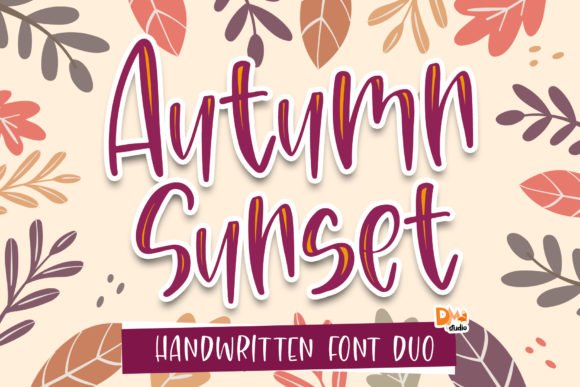
A Colorful Moment of Inspiration
There’s something magical about witnessing an autumn sunset – the vibrant hues of orange, pink, and yellow dancing across the sky. It’s a moment that sparks creativity and sets the tone for a cozy, inviting atmosphere. For designers, it’s the perfect inspiration to create something warm and captivating. And that’s exactly what the Autumn Sunset Font is all about.
This gorgeous handwritten font is designed to evoke the feeling of a crisp autumn evening, with its flowing lines and elegant curves. Whether you’re crafting wedding invitations, designing social media posts, or creating beautiful stationery art, the Autumn Sunset Font is the perfect tool to add a touch of warmth and personality to your projects.
Autumn Sunset Font Key Features
- Character Count: The font includes 250+ unique characters, including uppercase and lowercase letters, numbers, and special characters.
- Size and Resolution: Autumn Sunset Font is available in 1 style with a font size range of 8-72 points, and a resolution of 72 dpi.
- Unique Characteristics: This font features a warm, vibrant color palette with subtle texture, evoking the feeling of a sunset on a crisp autumn evening.
- Legibility: Autumn Sunset Font is designed to be highly legible, making it suitable for a wide range of applications, including body text, headings, and titles.
Autumn Sunset Font Review
Overall, I’d say the Autumn Sunset Font is a beautiful, yet imperfect, addition to any designer’s toolkit.
- Unique aesthetic: The font’s warm, golden tones evoke the feeling of a cozy autumn evening, making it perfect for designs that need a touch of whimsy and nostalgia.
- Well-suited for titles and headings: The font’s bold, chunky lines make it a great choice for titles, headings, and other text elements that need to stand out.
- Highly customizable: The font’s variable font technology allows designers to easily adjust the weight, width, and other parameters to fit their specific needs.
- Not ideal for large blocks of text: While the font is great for titles and headings, it can become tiresome to read in large quantities due to its irregular letterforms and varying x-height.
- Lack of consistency in ligatures: Some ligatures, like those involving the letters “t” and “h”, can look a bit wonky, which may detract from the overall aesthetic.
The Autumn Sunset Font is a beautiful, yet imperfect, addition to any designer’s toolkit. While it excels in certain areas, it falls short in others. However, with some careful planning and consideration, it can be a great choice for designs that need a touch of whimsy and nostalgia.
The Autumn Sunset Font is perfect for:
- Seasonal marketing materials, such as flyers and posters.
- Photography and art projects that evoke a sense of warmth and coziness.